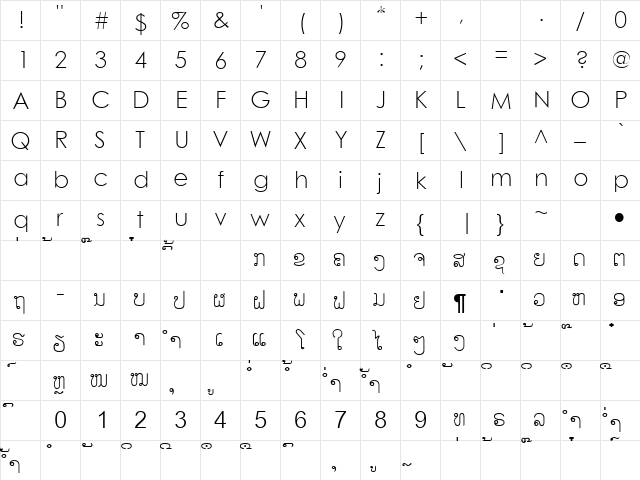
Alice0 Lao Regular
Design Context for Alice0 Lao Typeface
Alice0 Lao offers clean, dependable letterforms without strong stylistic allegiance, making it a practical choice for designers who need flexibility.